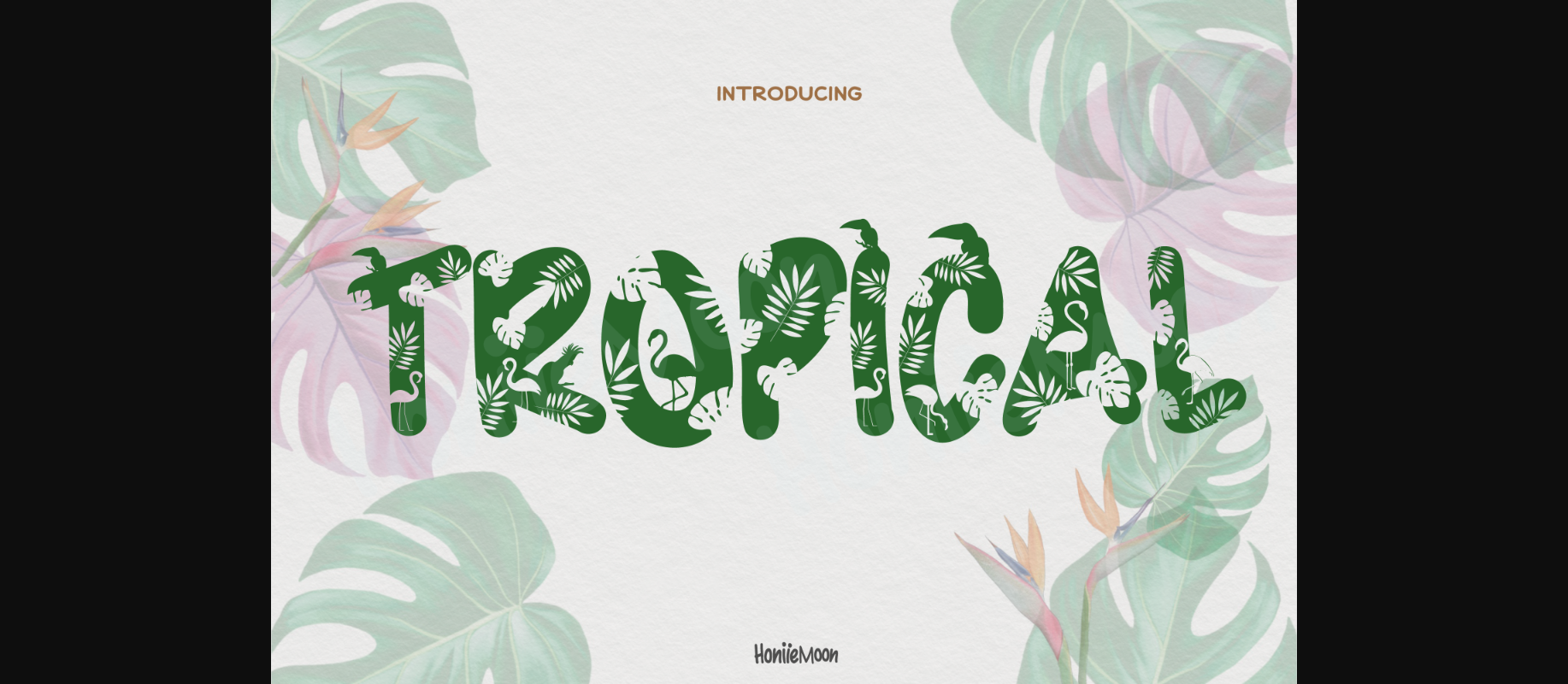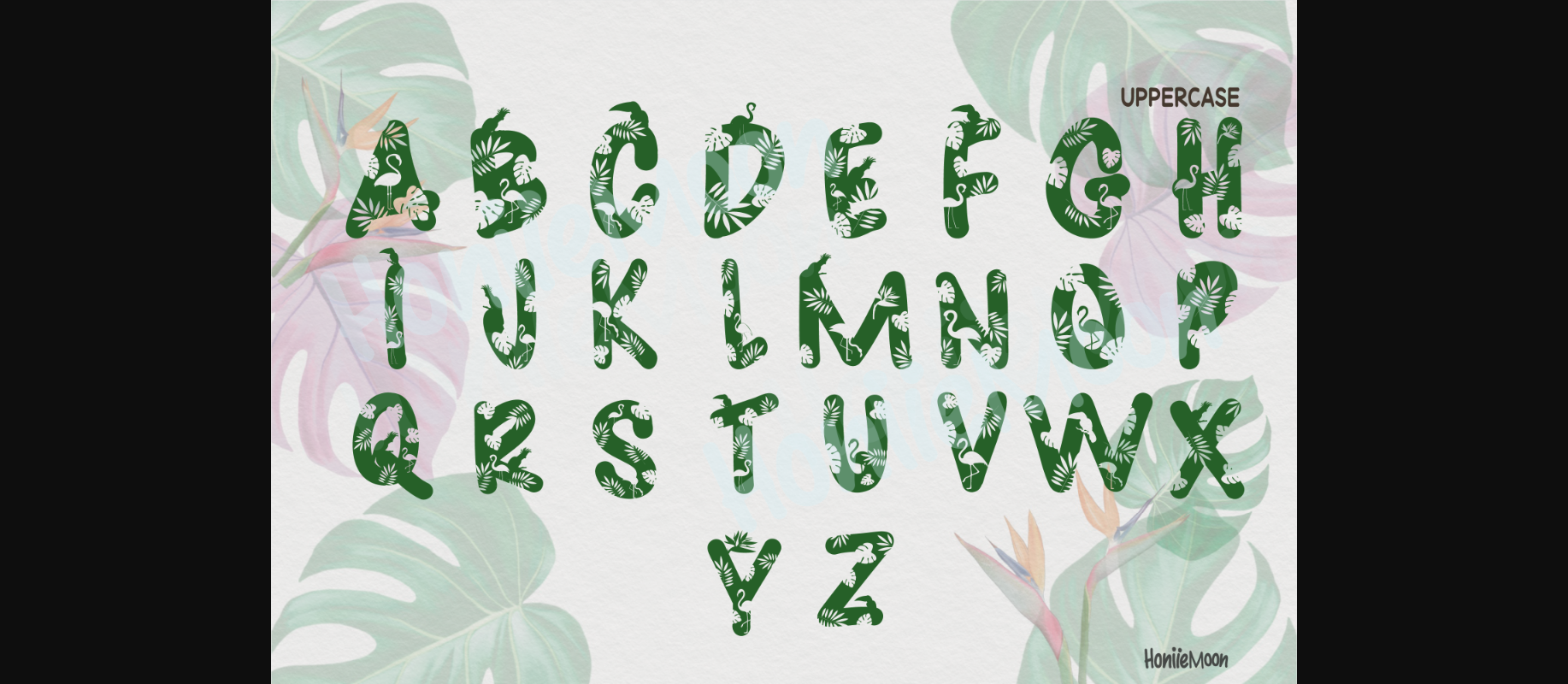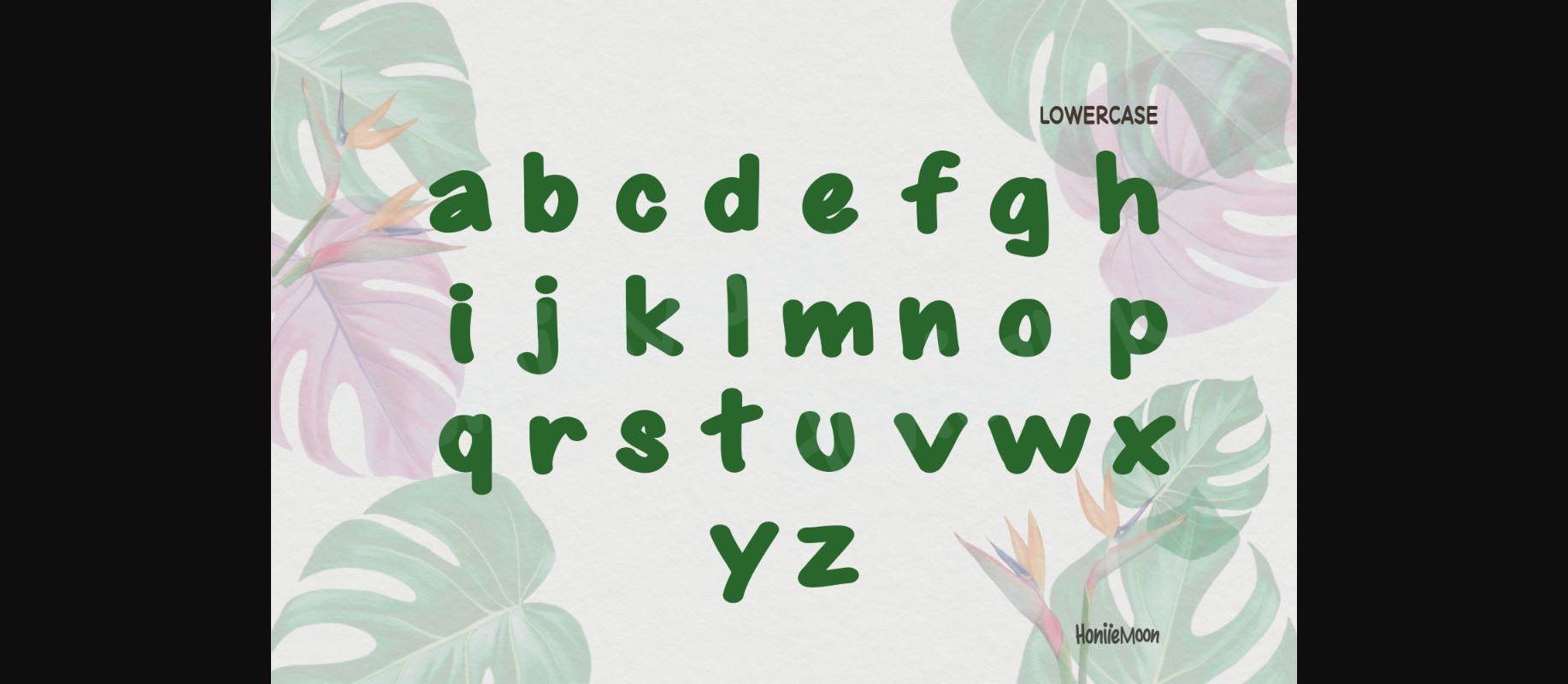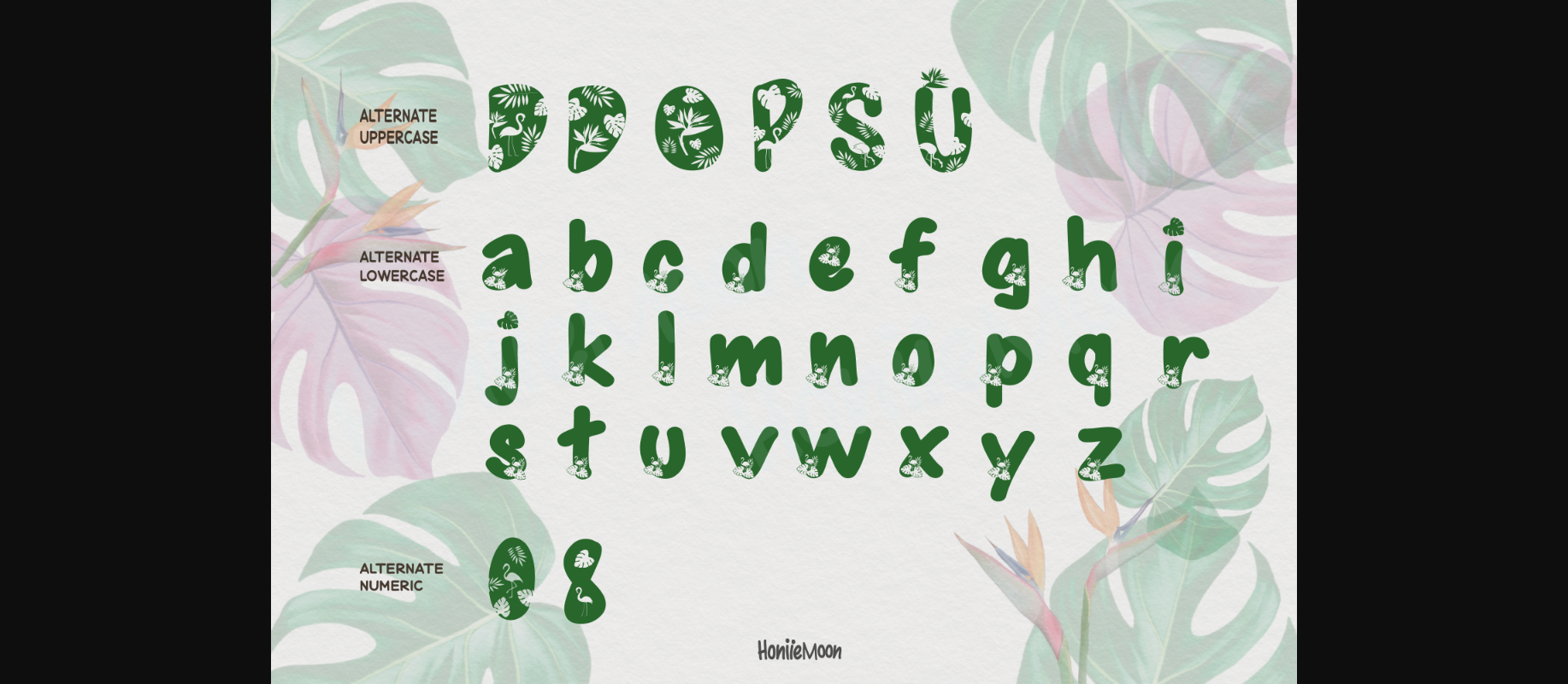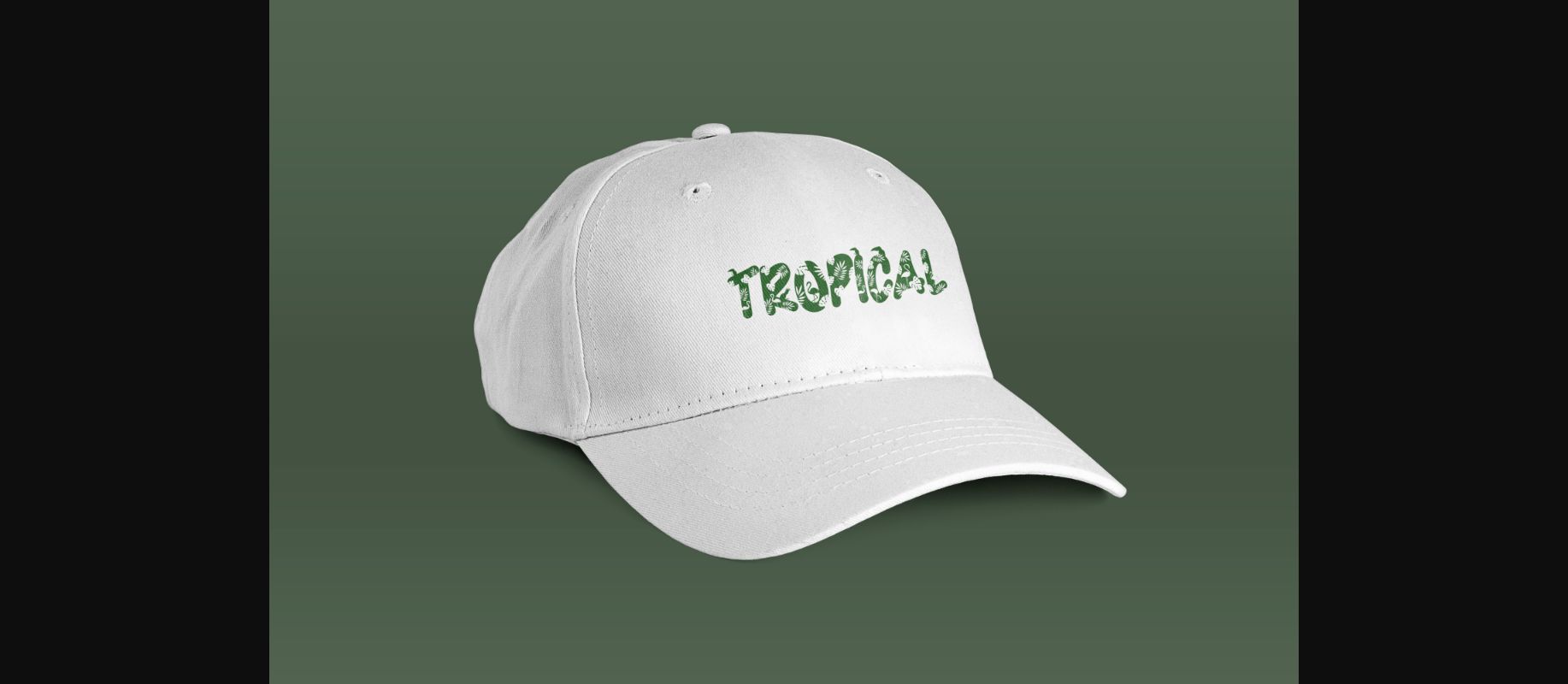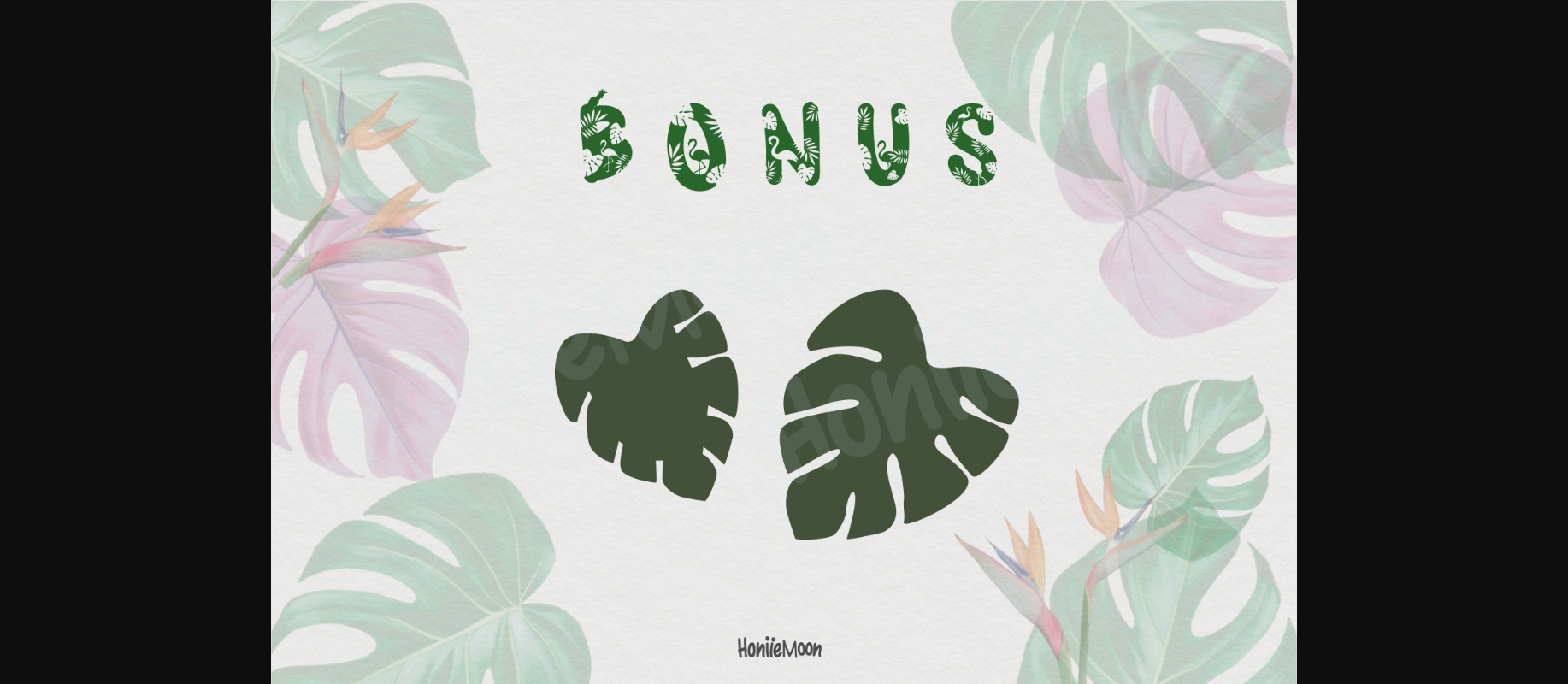
About Tropical Font
Tropical is a cool, original and fun decorative font. It looks both cute and authentic and it will enhance each of your designs. This font is PUA encoded which means you can access all of the glyphs and swashes with ease.